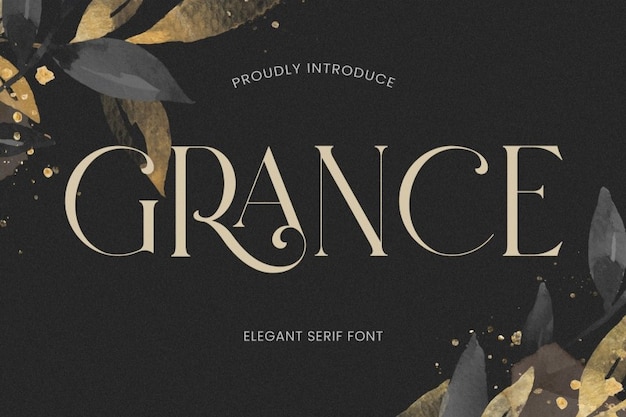
Grance Font
Grance font epitomizes simplicity and elegance with its clean, basic design. Each character exudes sophistication, making it ideal for a variety of applications. Whether used for headlines or body text, Grance's simple yet refined style adds a touch of class to any project.